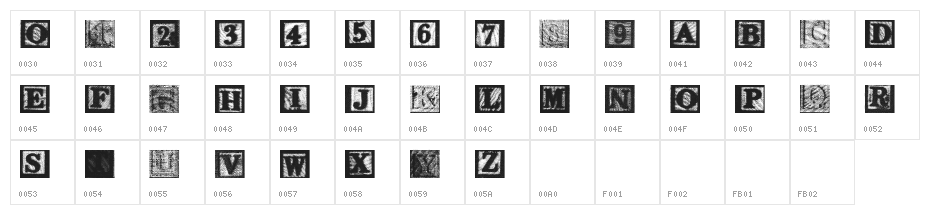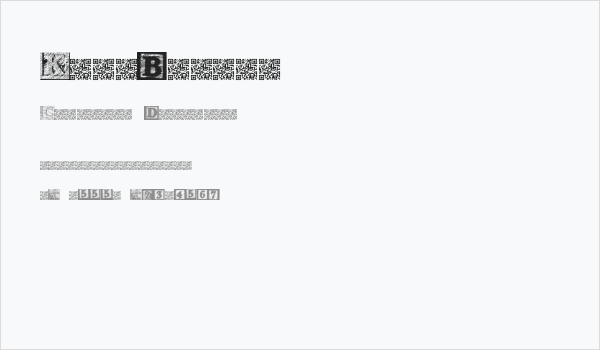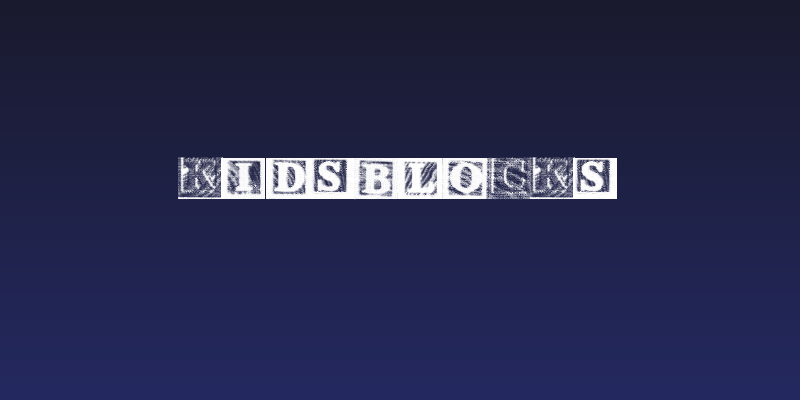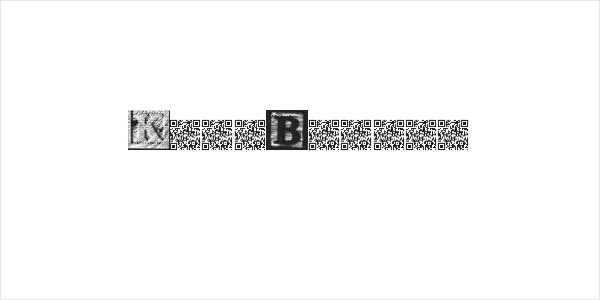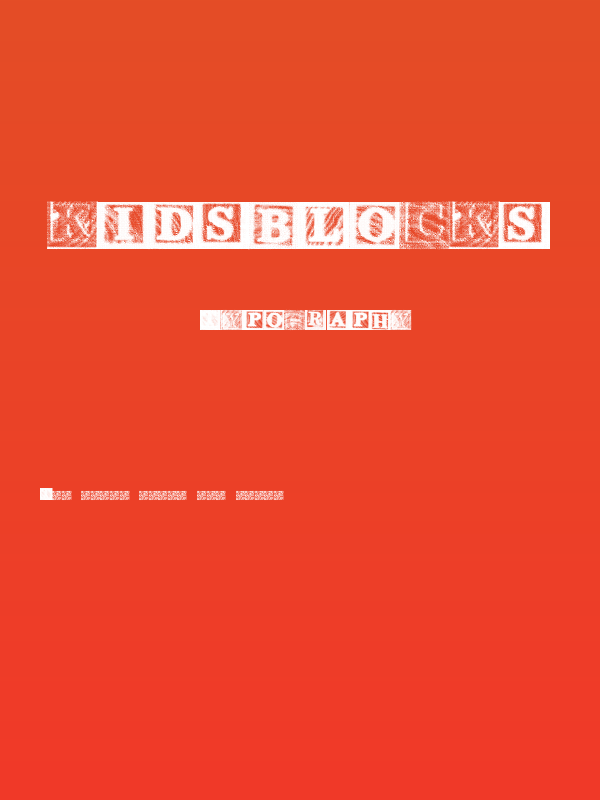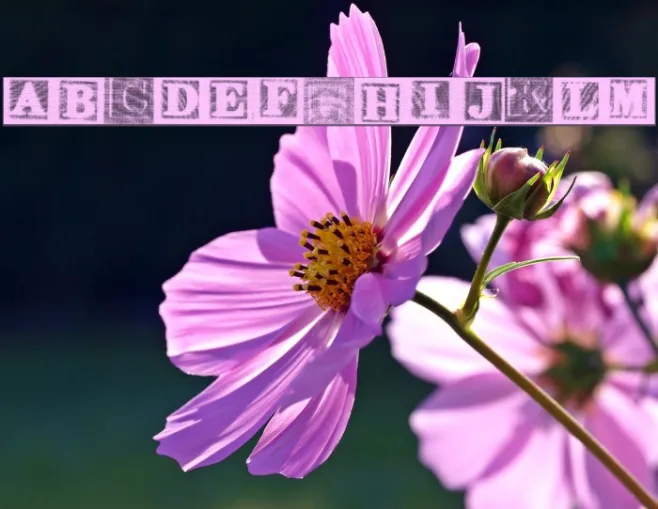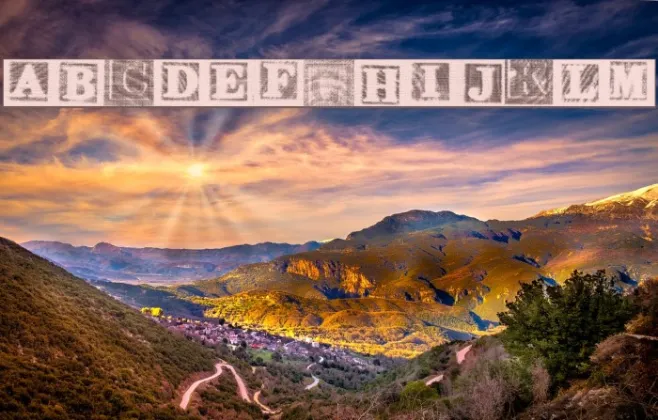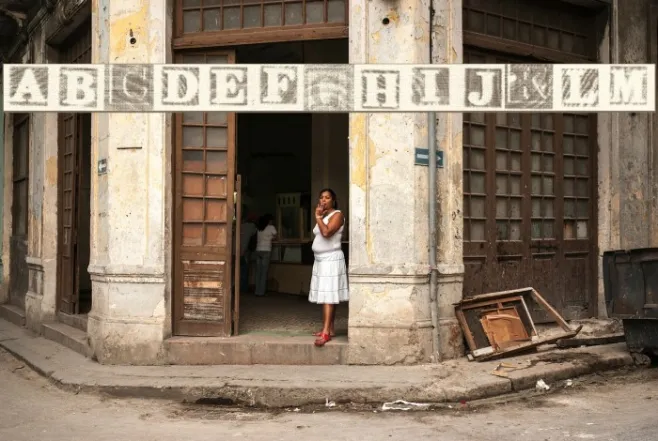
KidsBlocks Font
KidsBlocks Description
This playful and decorative font is reminiscent of vintage children's alphabet blocks. Each character is enclosed in a square, giving it a distinct blocky appearance. The letters and numbers are bold and slightly distressed, adding a nostalgic and handcrafted feel. The font features a mix of serif and sans-serif styles, with some characters having playful embellishments. The overall look is whimsical and charming, perfect for projects that require a touch of nostalgia and fun.